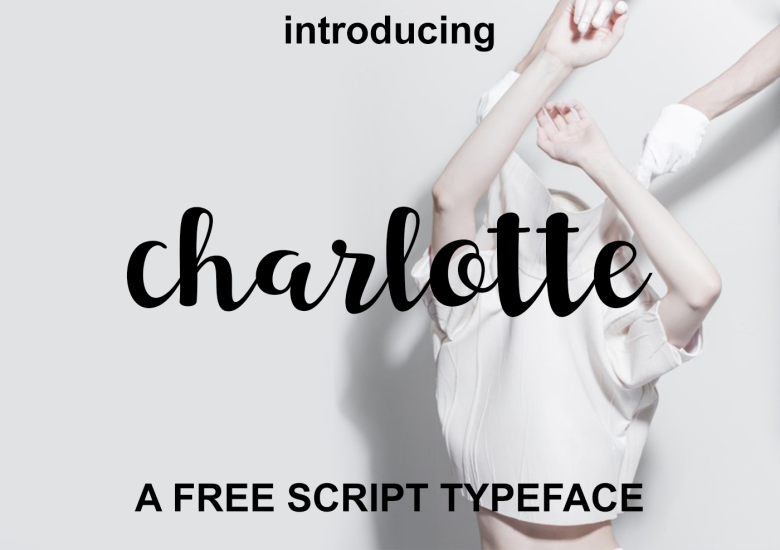
Charlotte Script Font
Continue to be a work from Polythene Designs. lntroducing Charlotte Script Font! a bouncy script font, handwritten with a brush pen and digitized. Ideal for logo, quotes, wedding, product label/packaging, fashion, letter, invitation, poster, merchandise, greeting cards, etc